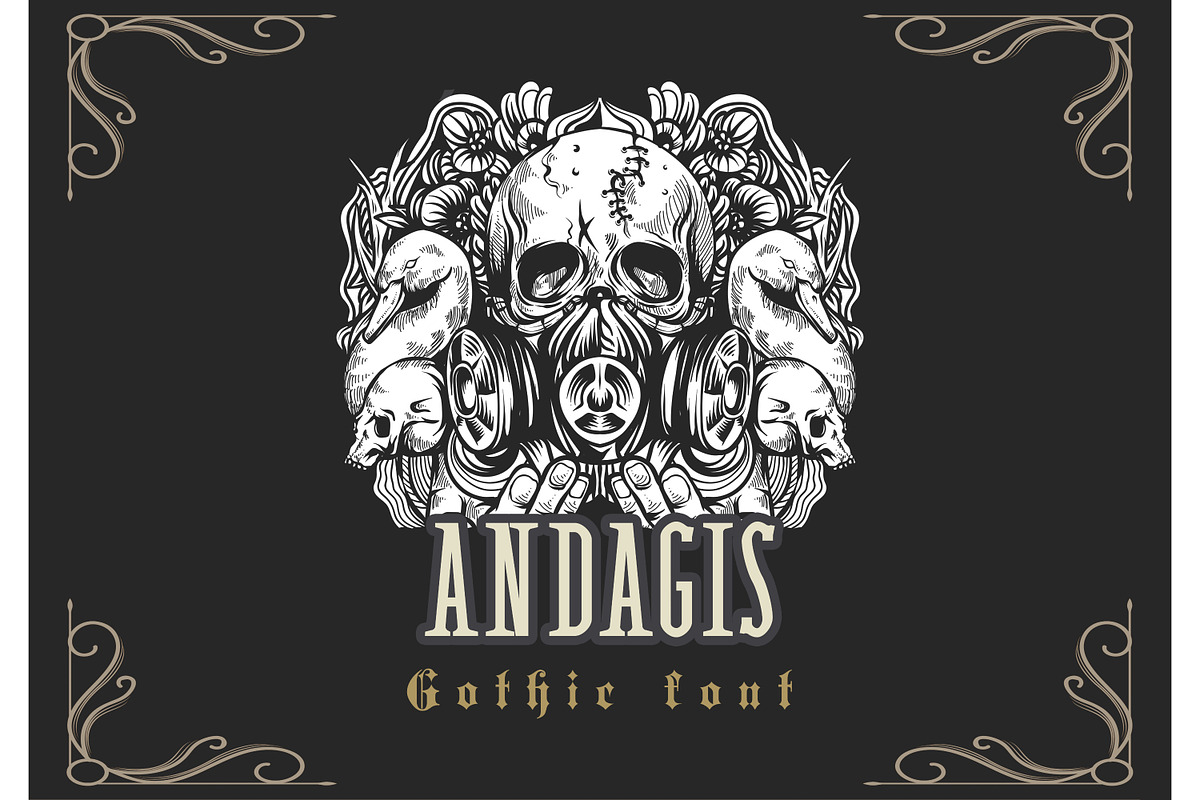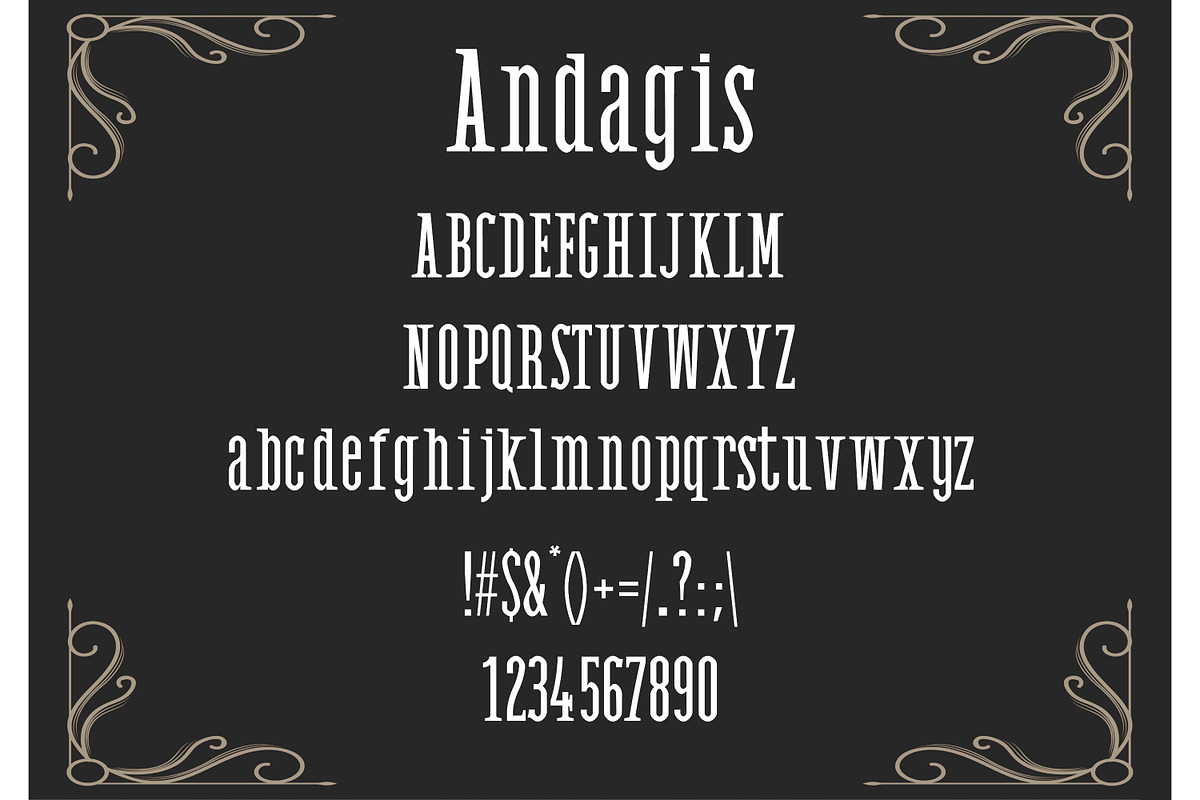
Andagis Gothic Font
Andagis Gothic Font by DmDesignsStoreArt is a font selected for branding, posters, packaging, typography.
Why Andagis Gothic Font is worth a look
Andagis Gothic Font by DmDesignsStoreArt fits naturally into Branding, posters, packaging, typography.